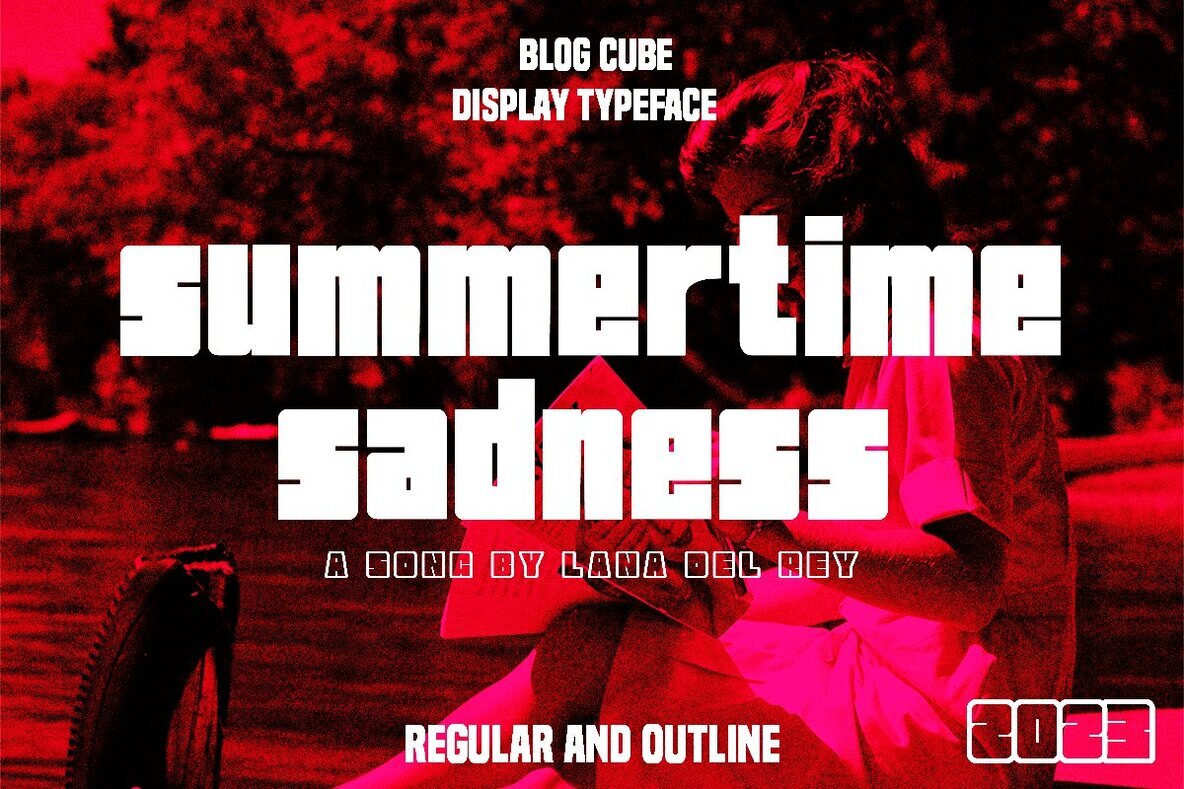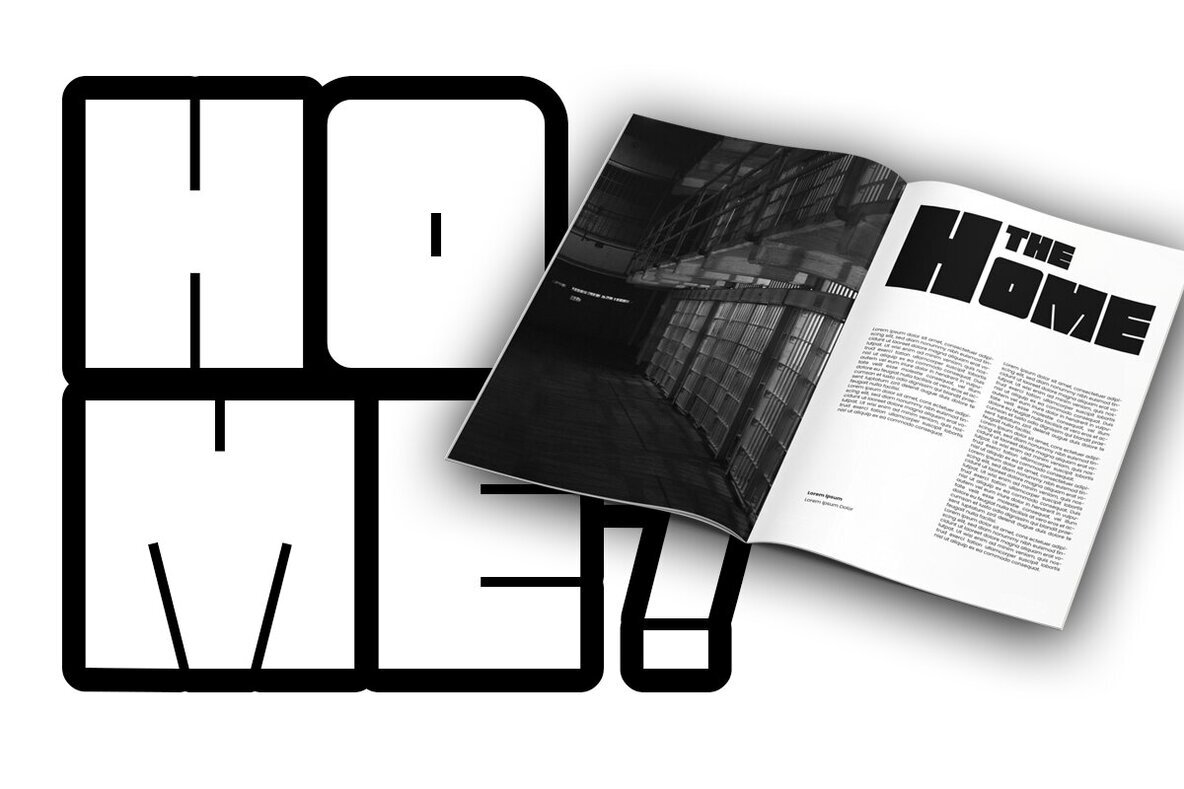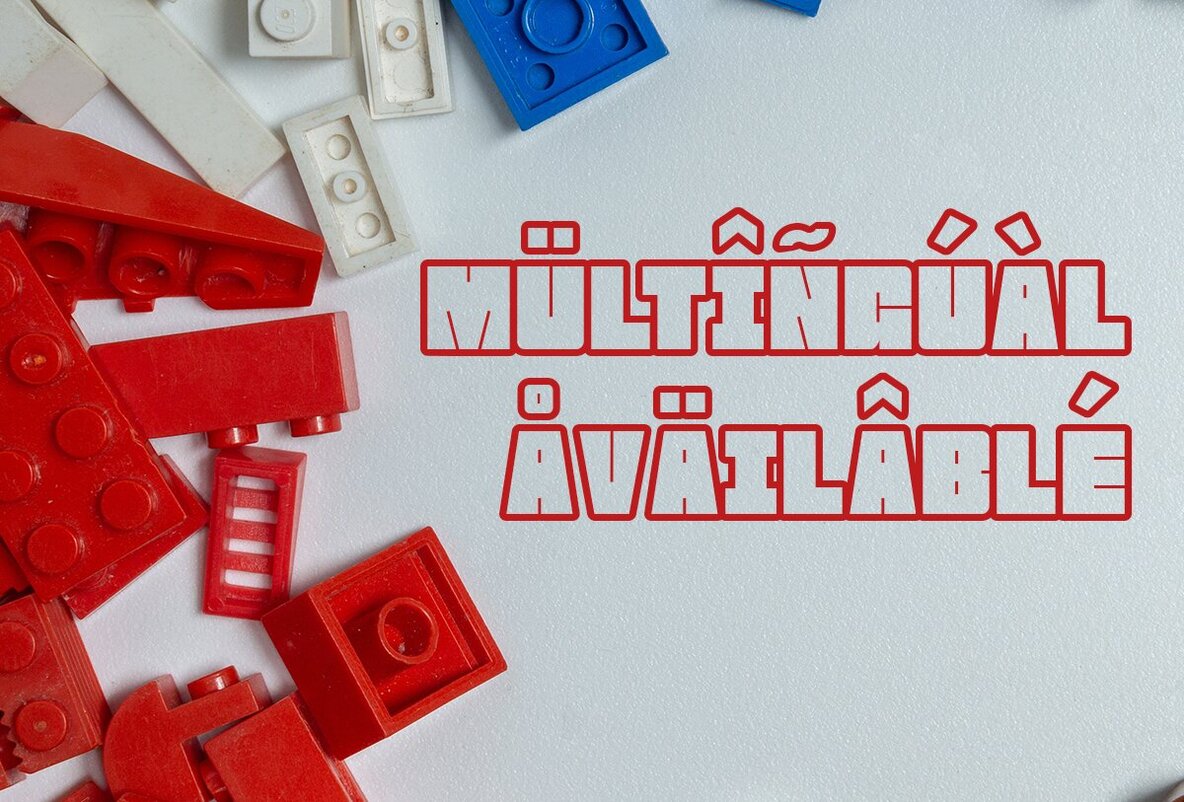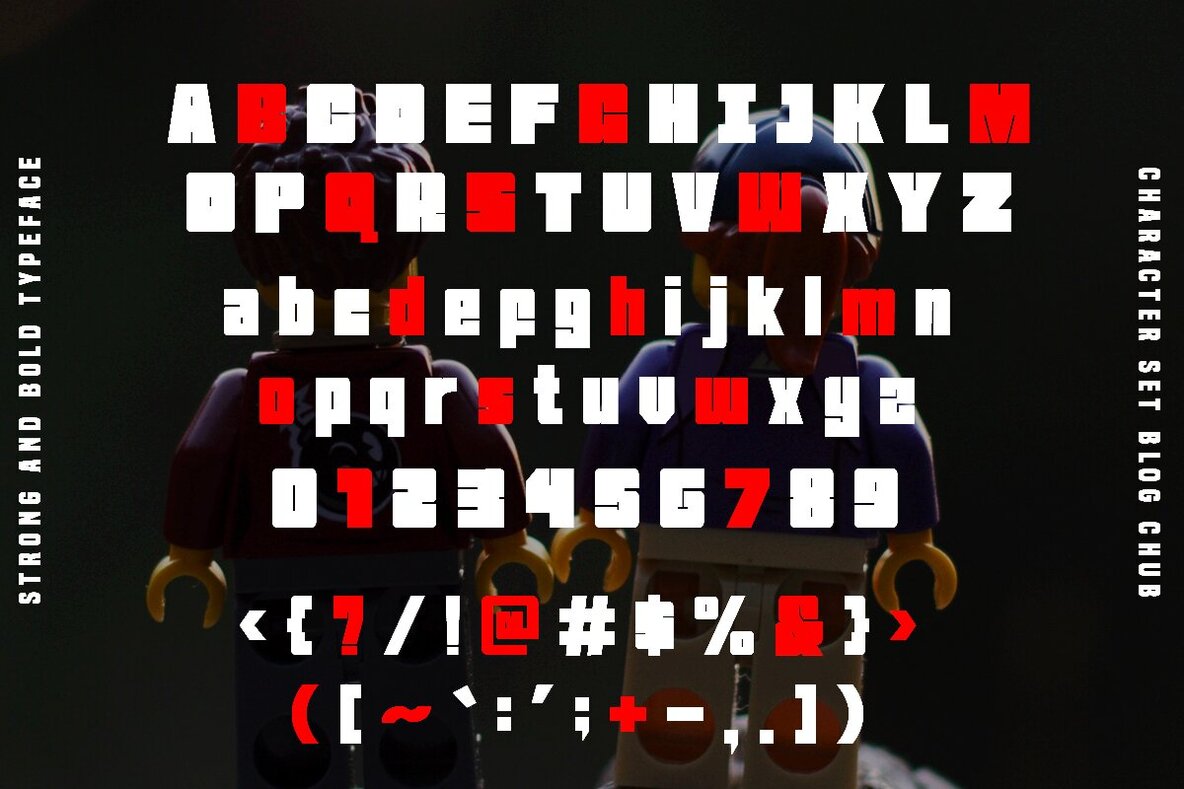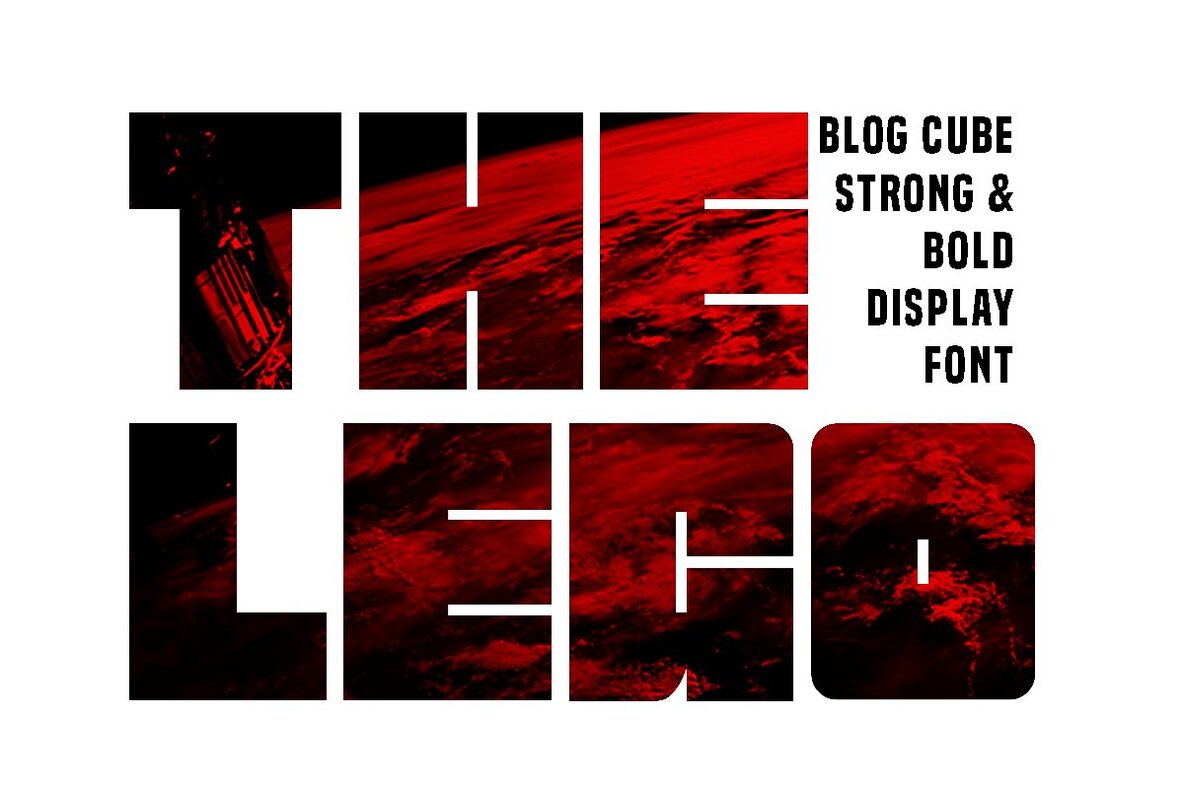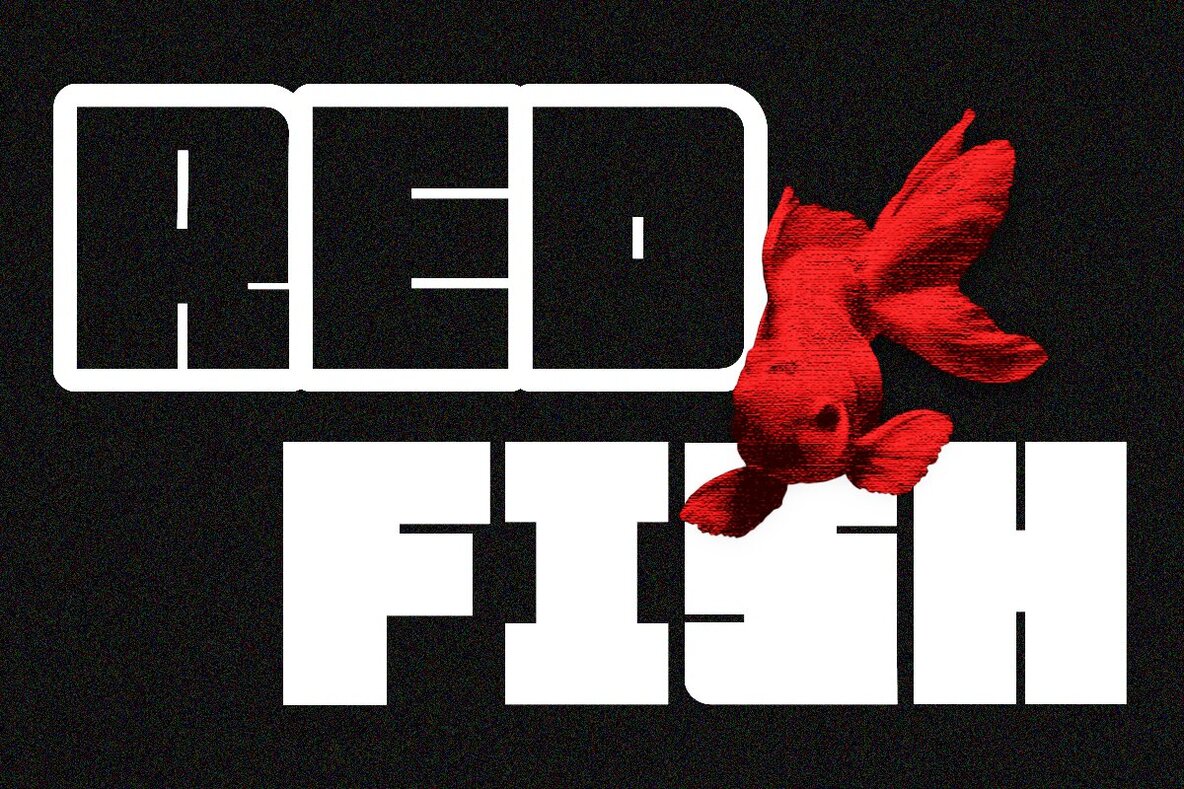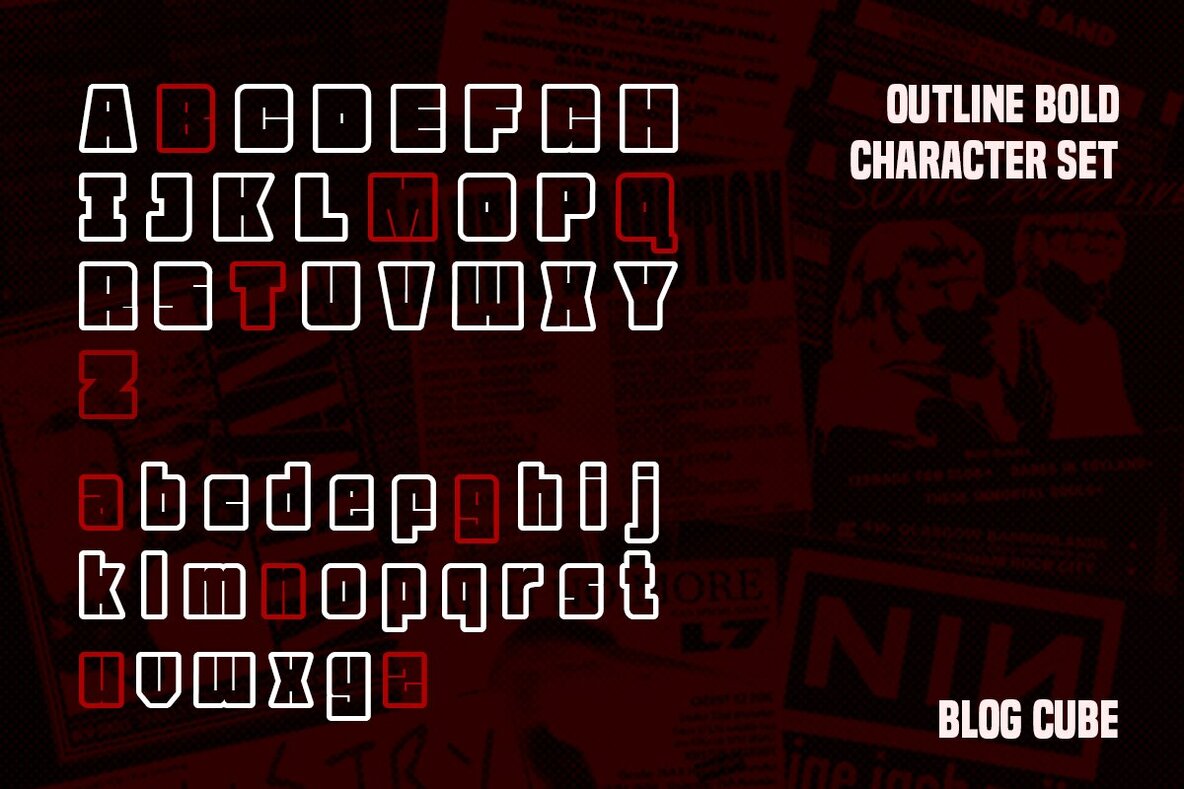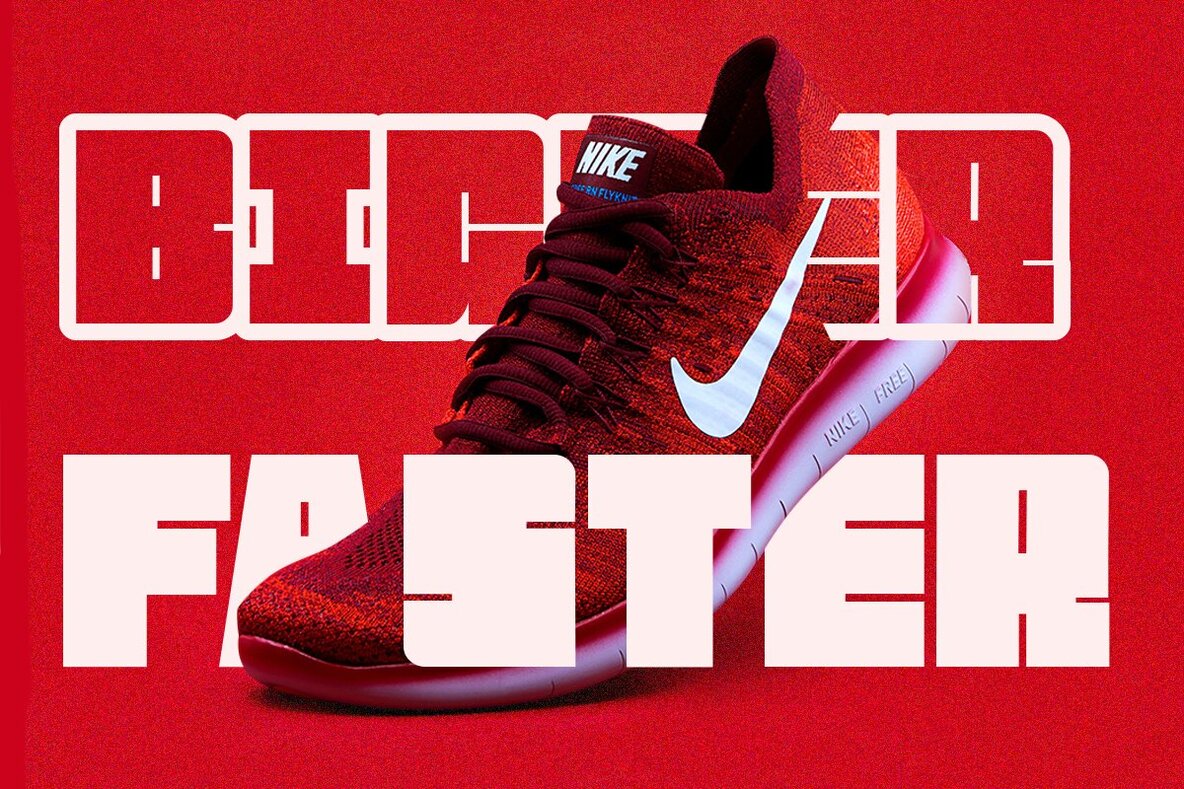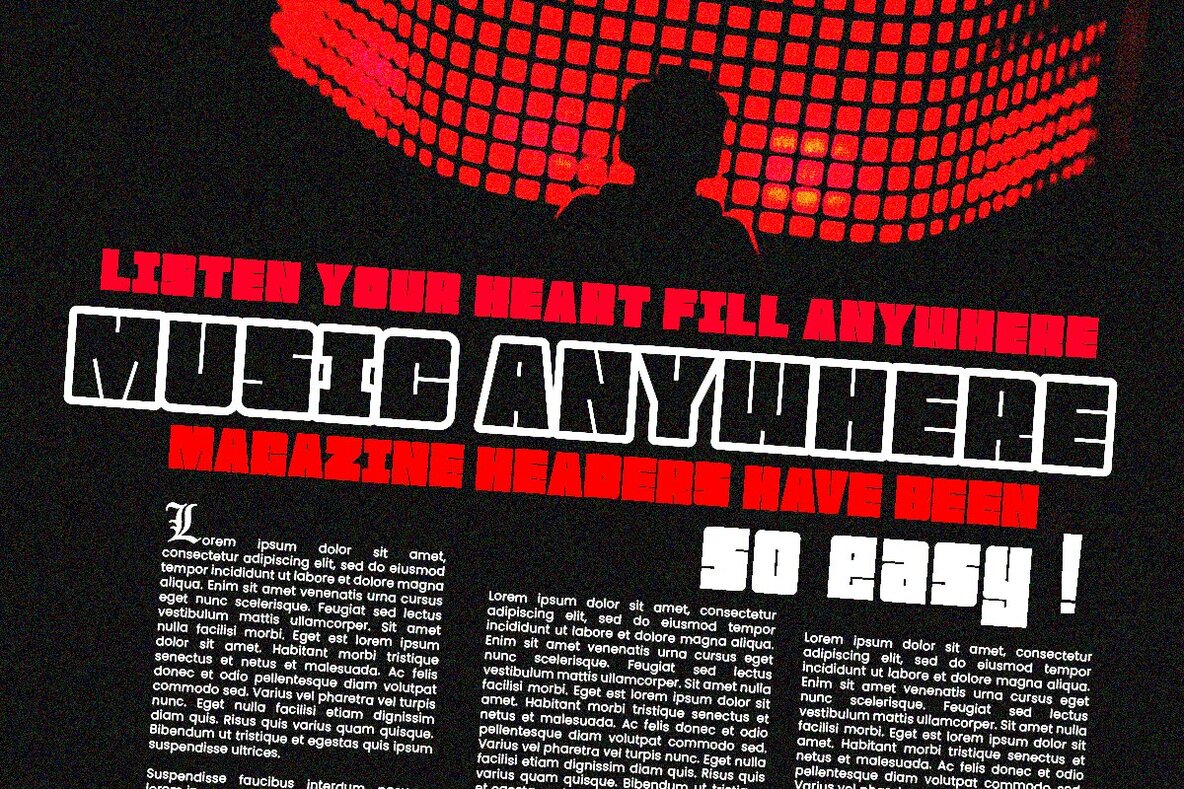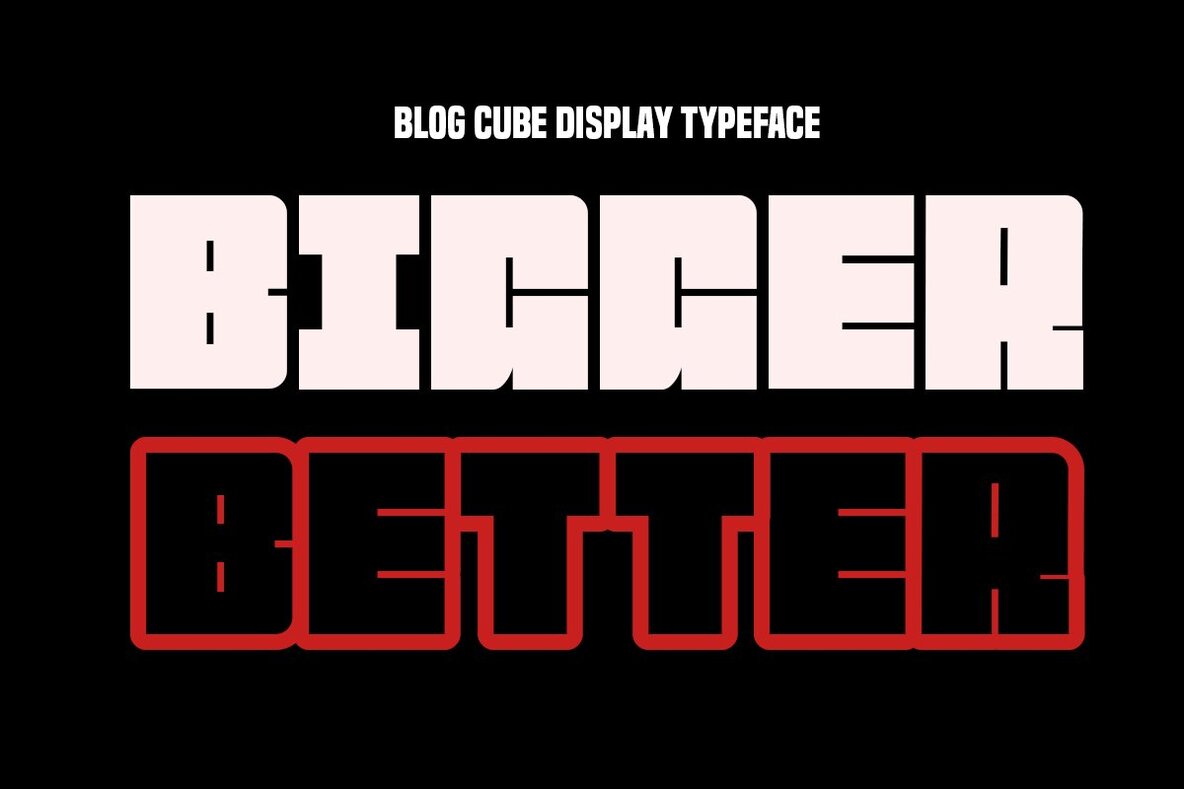
Blog Cube Font
Blog Cube is a bold and strong display typeface characterized by its rectangular shape, ideal for various design projects. Whether you're working on posters, logos, branding, covers, banners, t-shirts, or large-scale artwork, Blog Cube delivers a striking visual impression.Blog Cube: Bold Display Typeface for Impactful Design